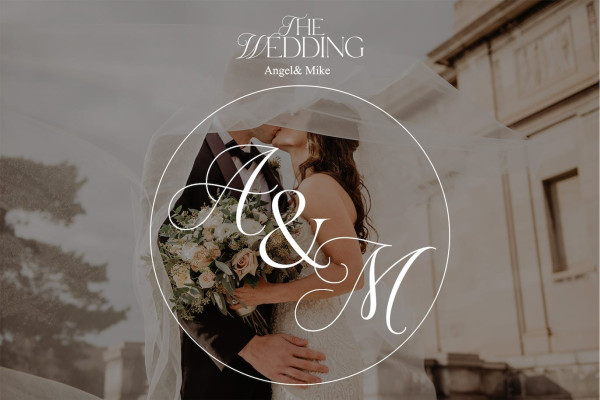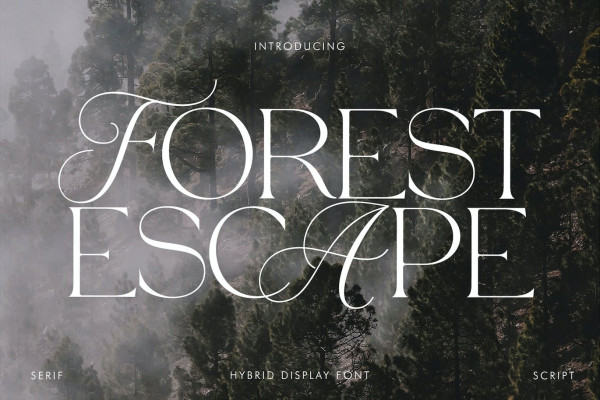
Forest Escape Font
Forest Escape Font, an attractive font that gives the impression of simplicity and style. Here we will see a feminine touch but it will also look beautiful when you use it in a luxury style design.